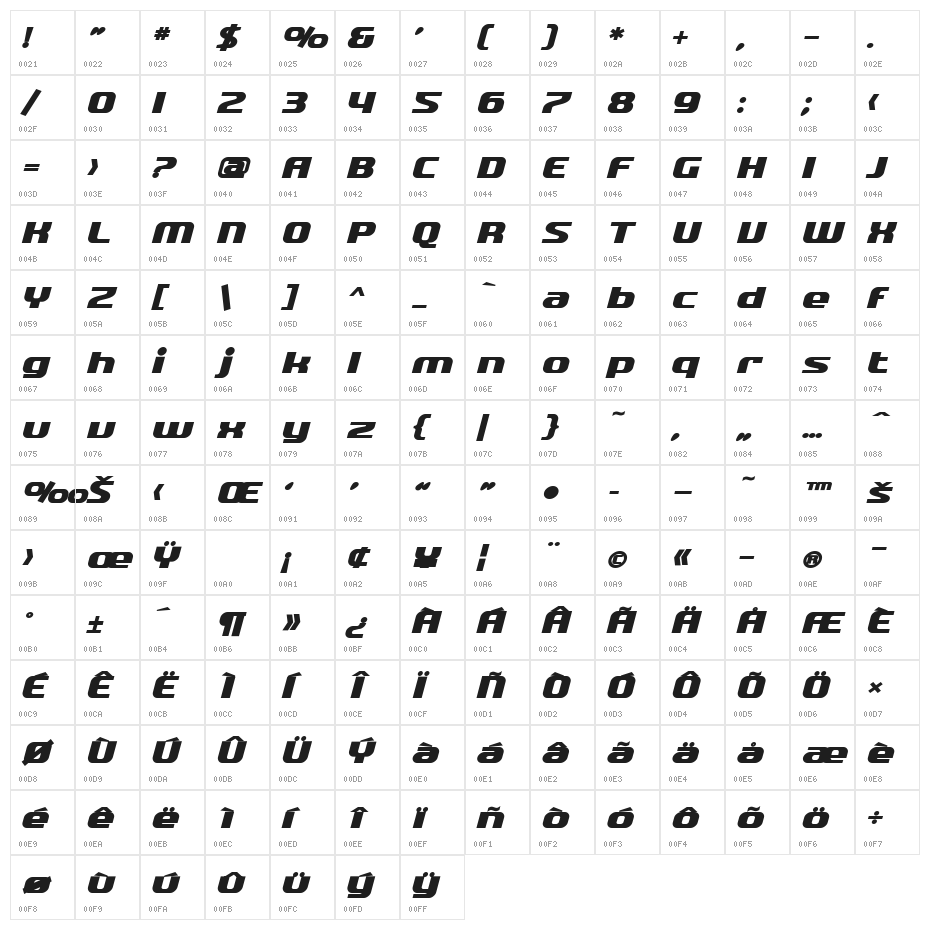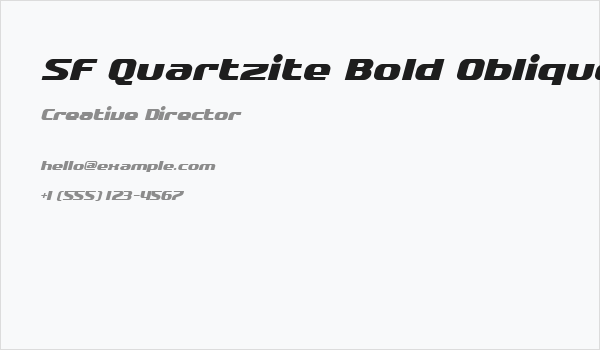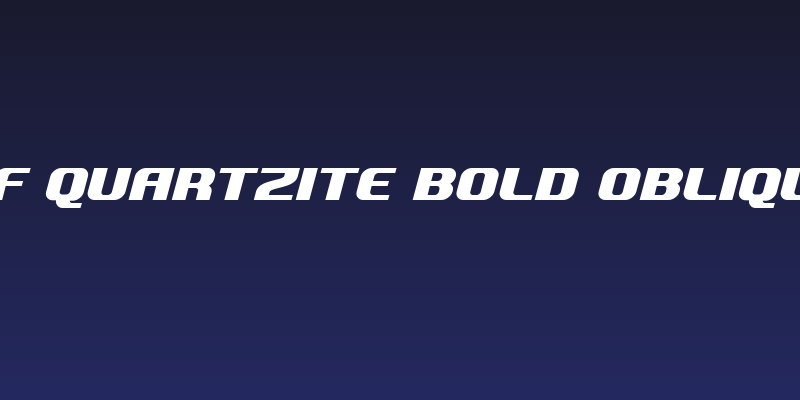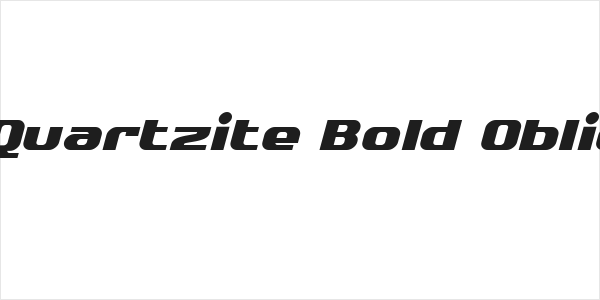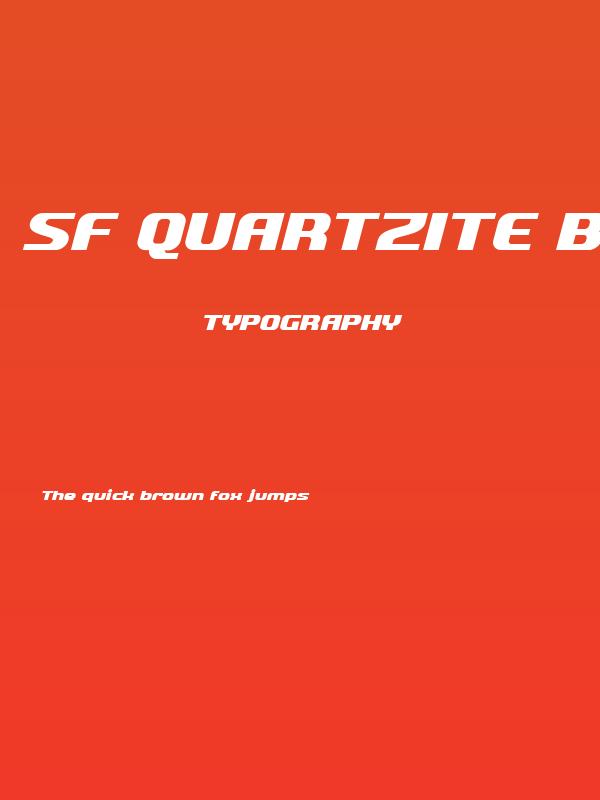
SF Quartzite Bold Oblique Font
SF Quartzite Bold Oblique Description
This font exhibits a bold and dynamic style with an oblique slant, giving it a sense of motion and energy. The characters are robust and impactful, featuring a modern sans-serif design with smooth curves and sharp edges. The uppercase and lowercase letters maintain a consistent weight, providing a cohesive look. The numerals are equally bold, ensuring readability and emphasis. Special characters are designed with the same boldness, making them stand out effectively. This font's strong presence makes it ideal for attention-grabbing designs.
| Proposed Projects | Ideal for sports branding, dynamic posters, modern advertising, and impactful headlines. |